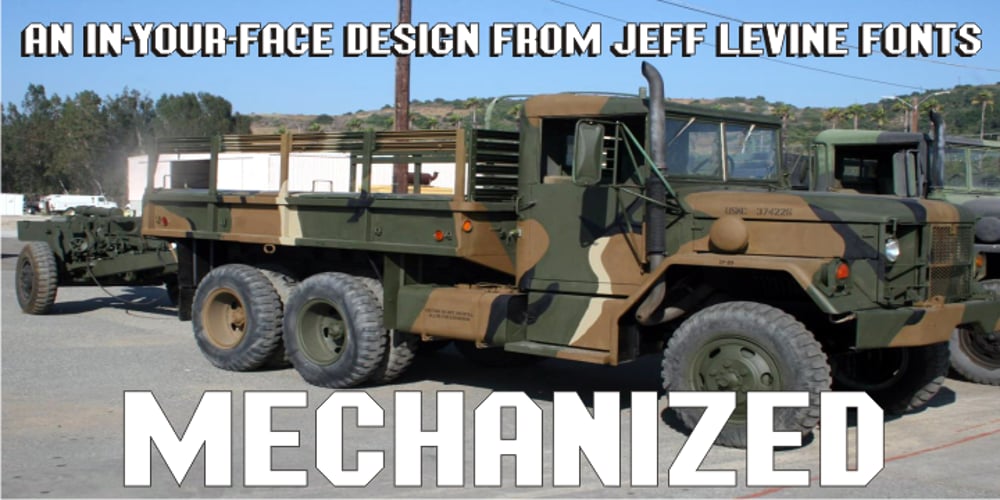
Mechanized JNL
Mechanized JNL font
Mechanized JNL Font Family was designed by Jeff Levine and published by Jeff Levine. Mechanized JNL contains 1 styles and family package options. Mechanized JNL is a solid interpretation of Jeff Levine’s stencil font Trencher JNL. Both fonts were based on a photo of hand-cut stencils found on a 1940’s trenching machine in the collection of the Marine Corps Mechanized Museum at Camp Pendleton, California. Thanks to restoration volunteer Brian Platzer for providing the images of those stencils.